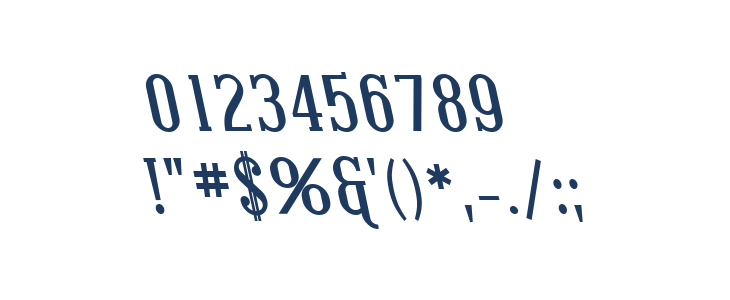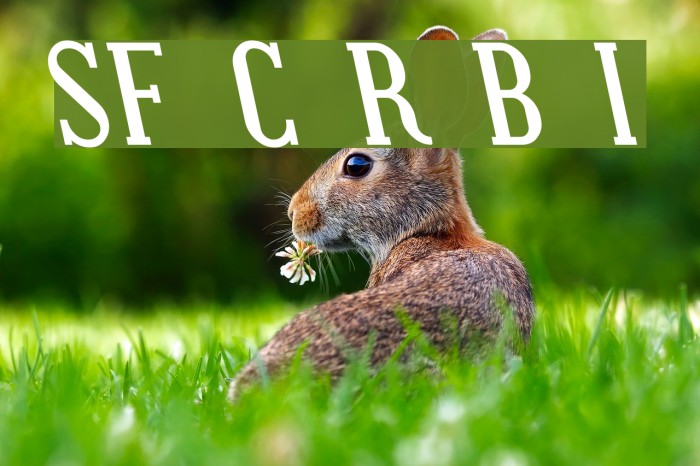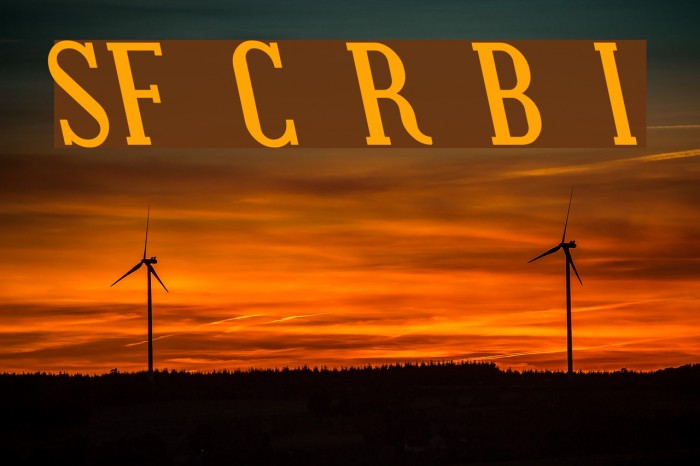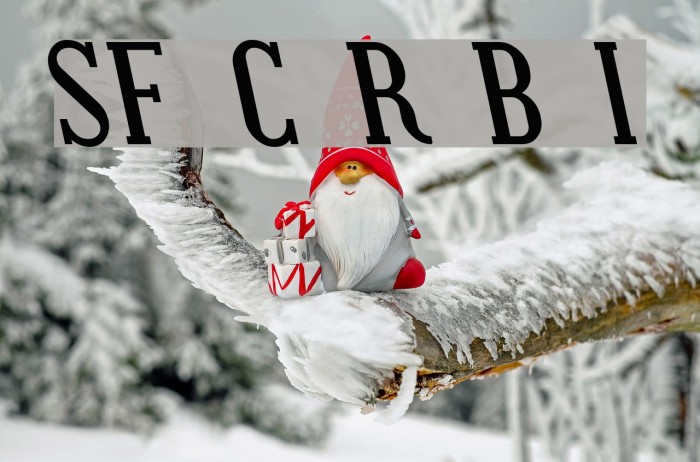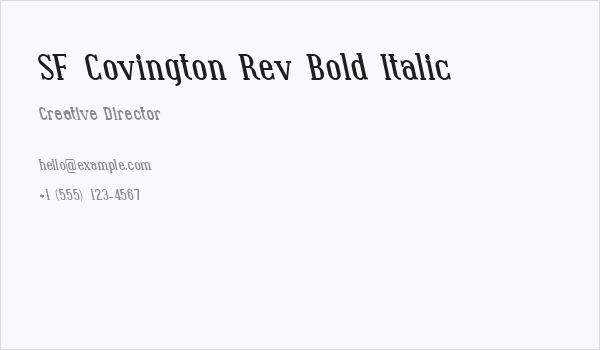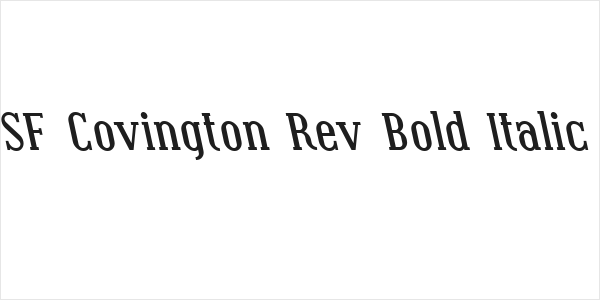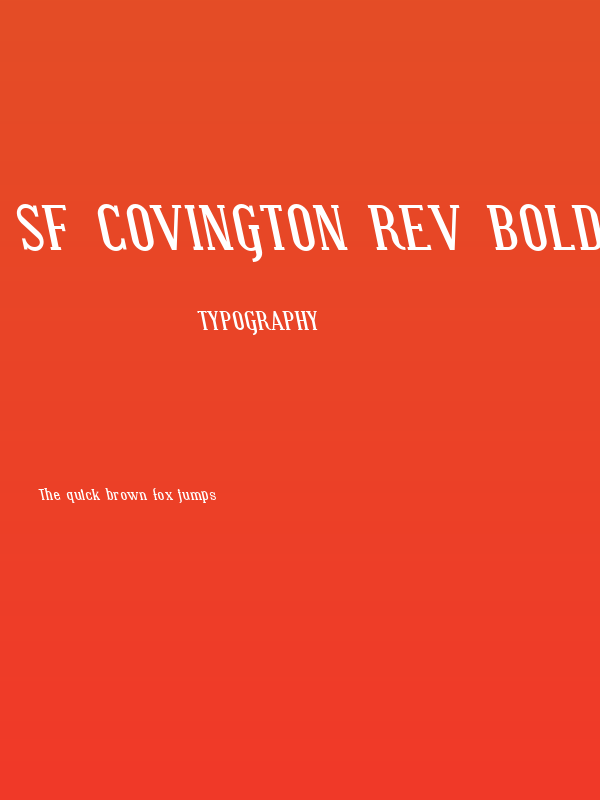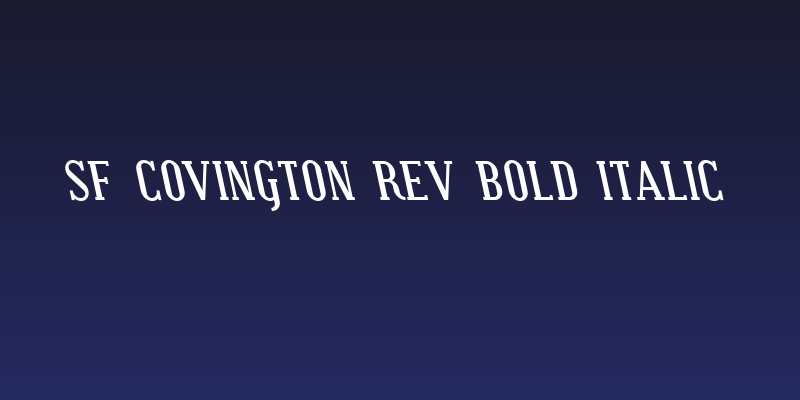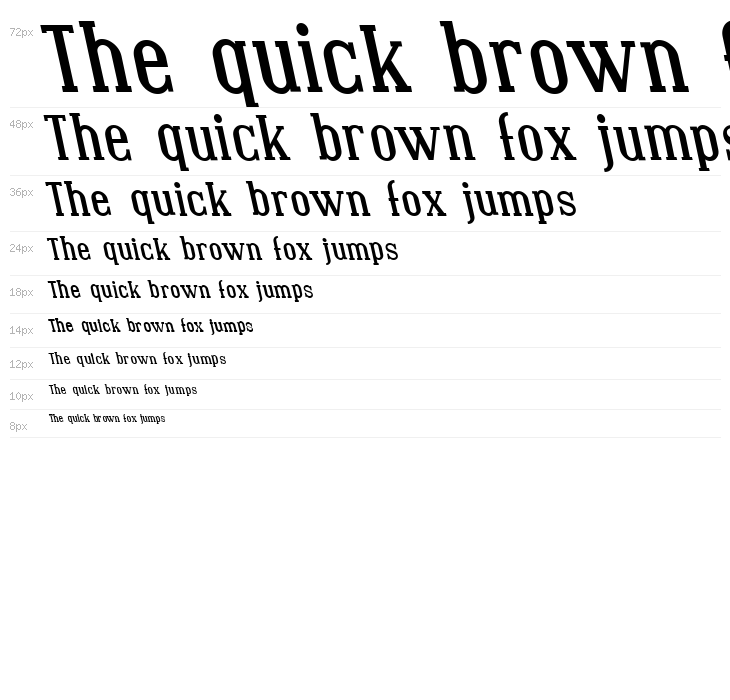
SF Covington Rev Bold Italic Font
SF Covington Rev Bold Italic Description
This font exhibits a bold and italicized style with a strong presence. The characters are well-defined with a slight slant, giving it a dynamic and energetic appearance. The serifs are prominent, adding a touch of elegance and tradition. The uppercase letters are tall and commanding, while the lowercase letters maintain a consistent flow. Numbers are clear and easily distinguishable, making them suitable for various applications. Special characters are designed with the same attention to detail, ensuring uniformity across the typeface. The overall design is both modern and classic, making it versatile for different uses.
| Overall Style | Modern Classic |
| Use Case | Headlines, Logos, Editorial Design |
| Proposed Projects | Ideal for headlines, branding, editorial design, and advertising materials. |